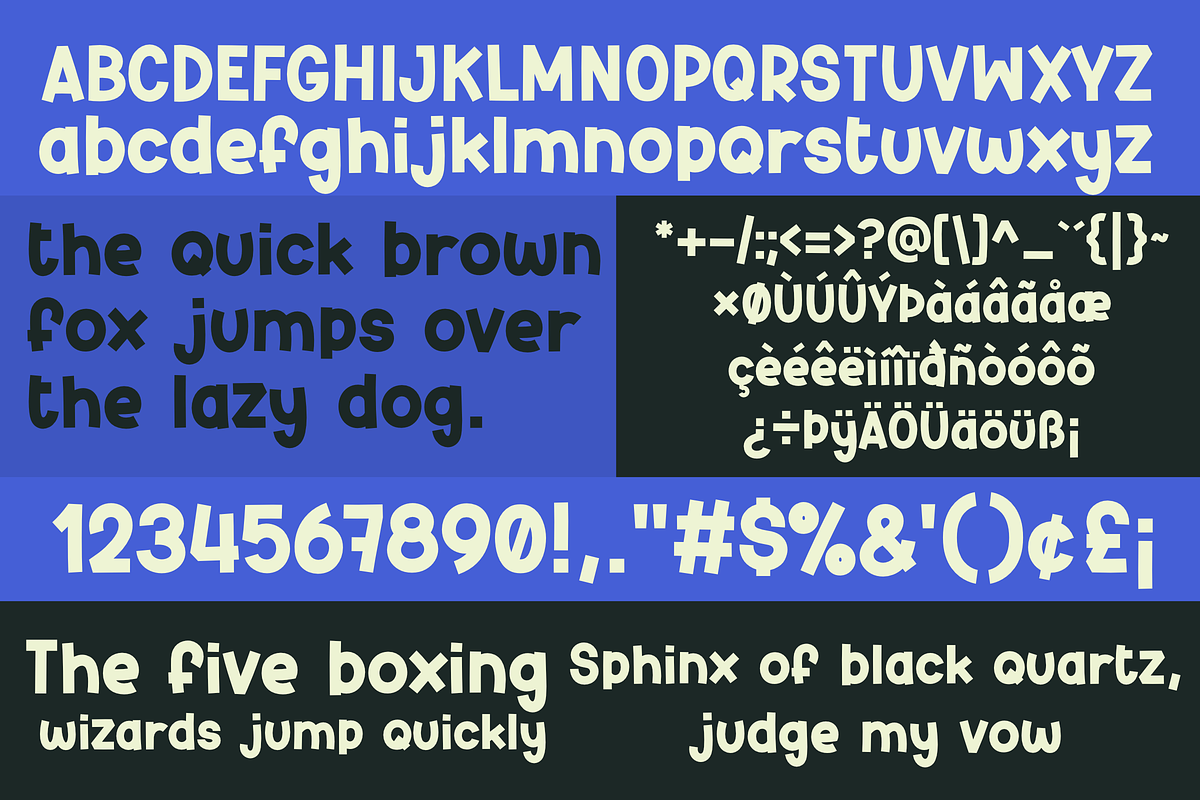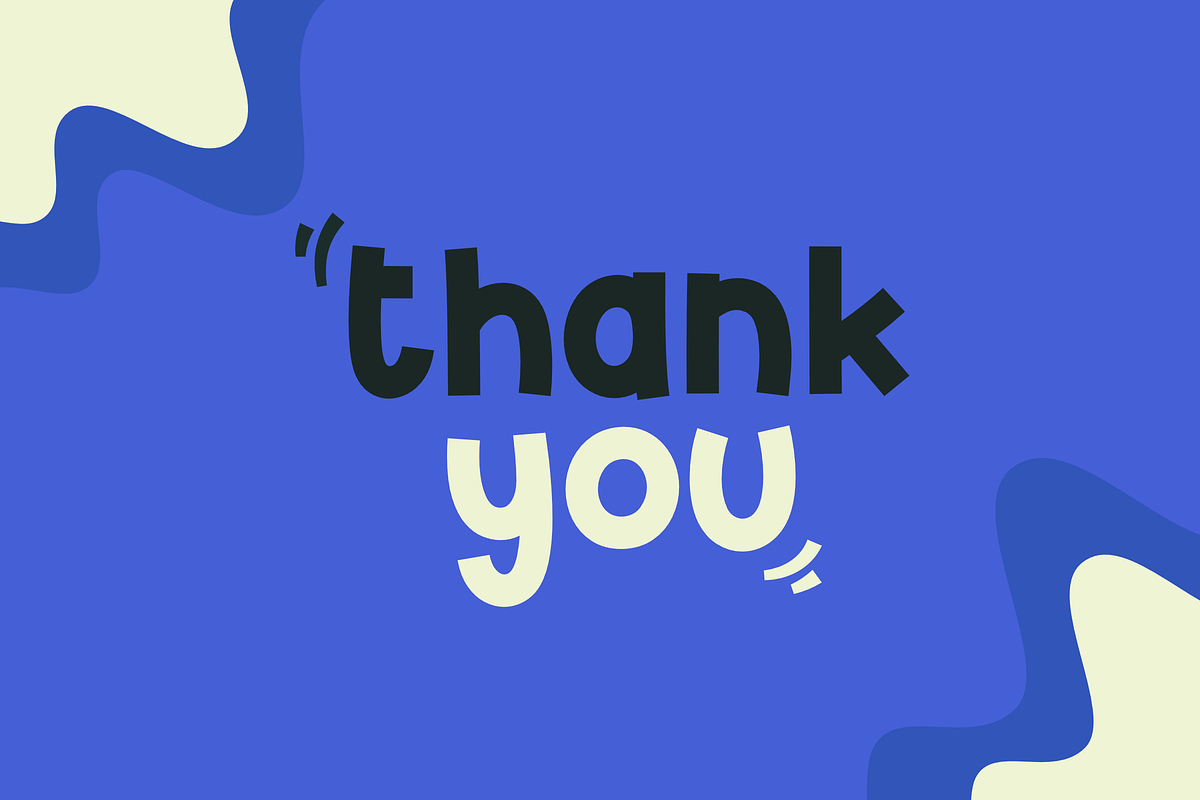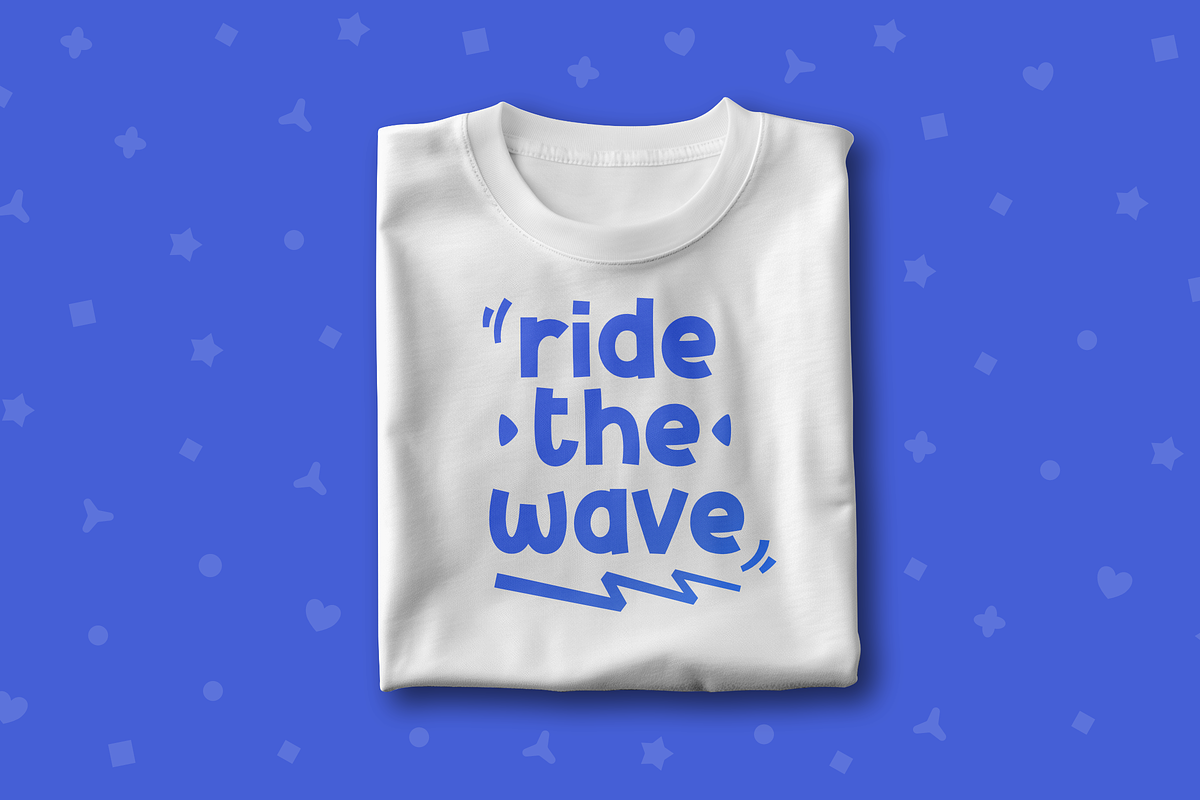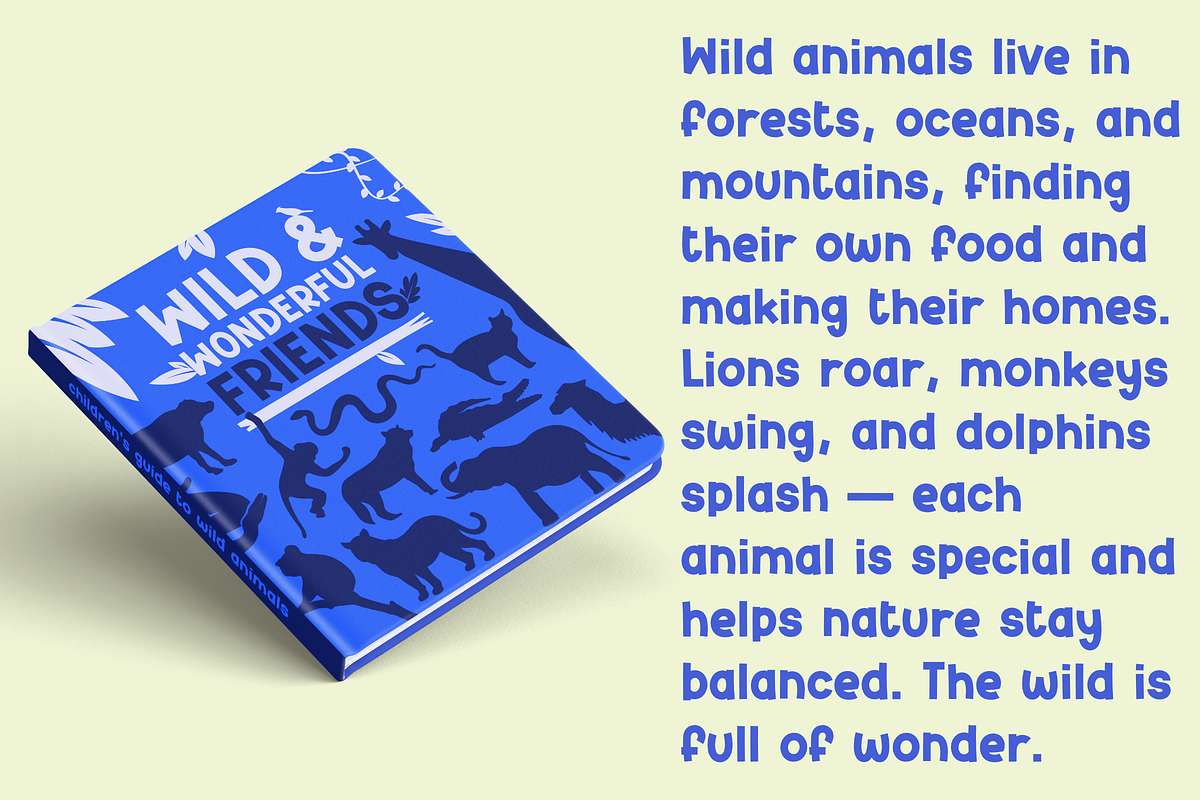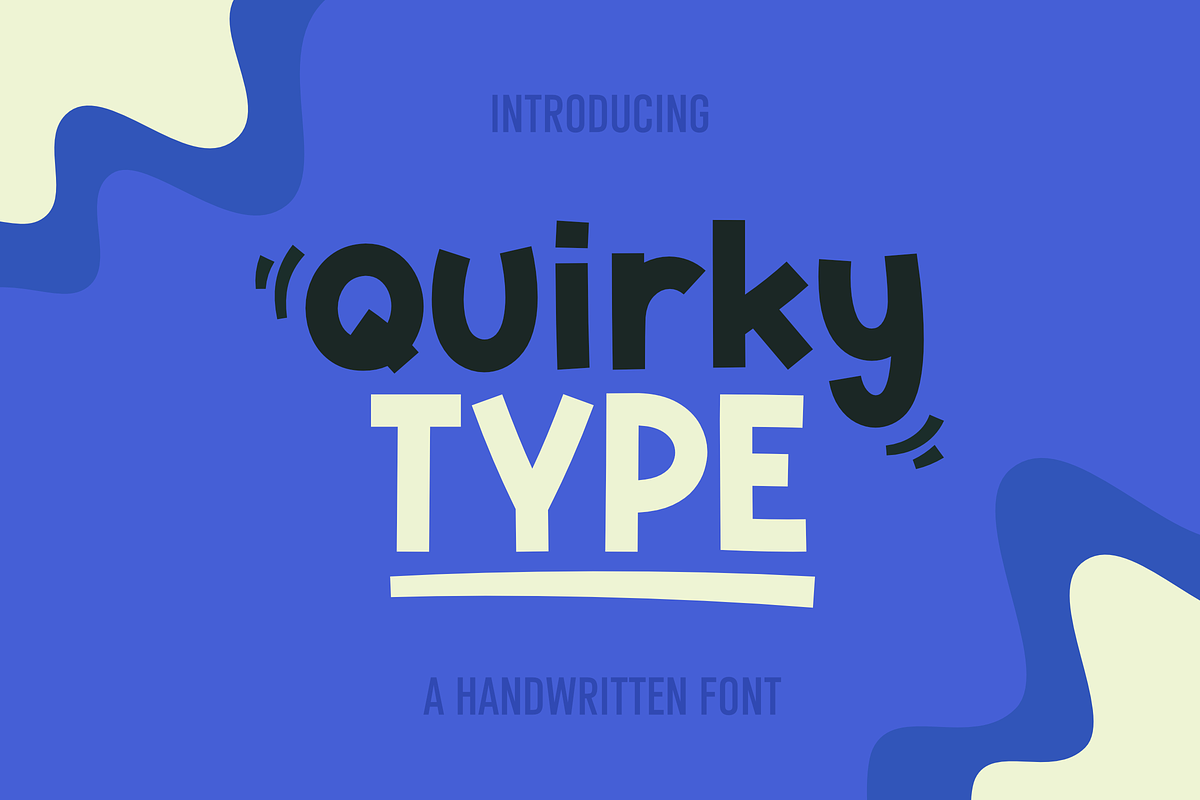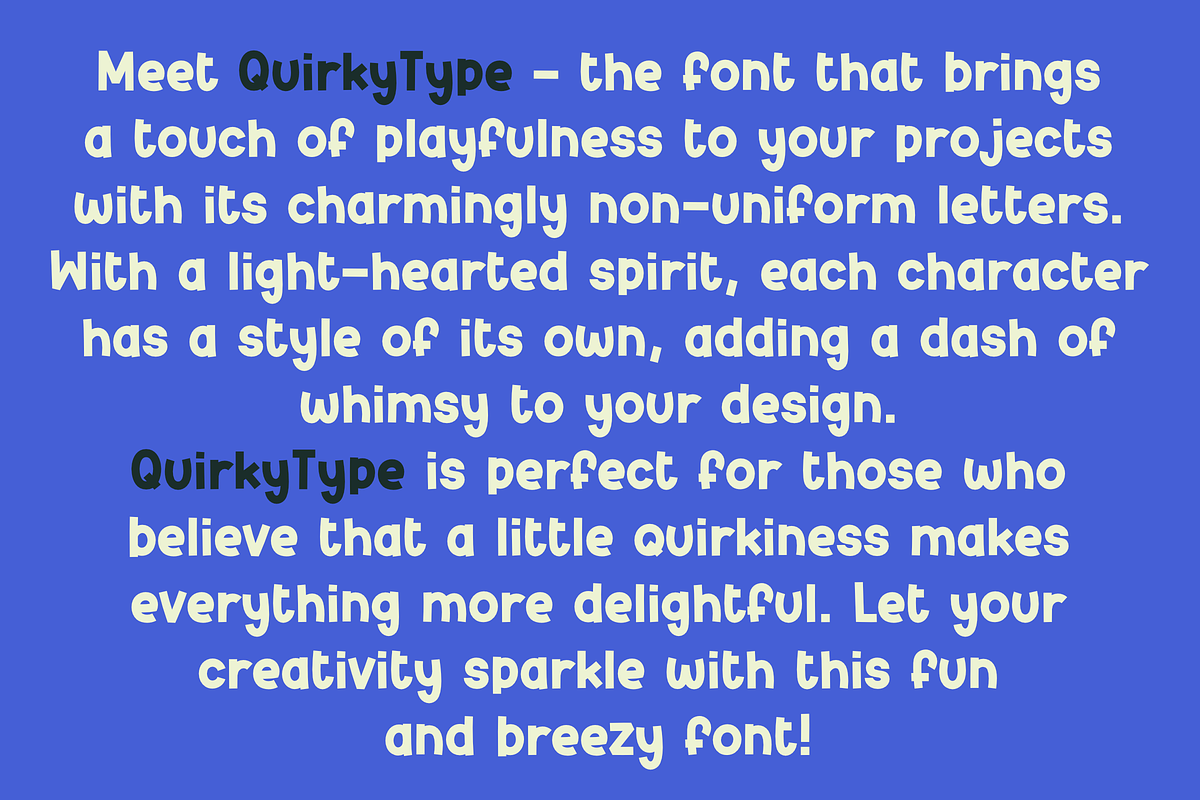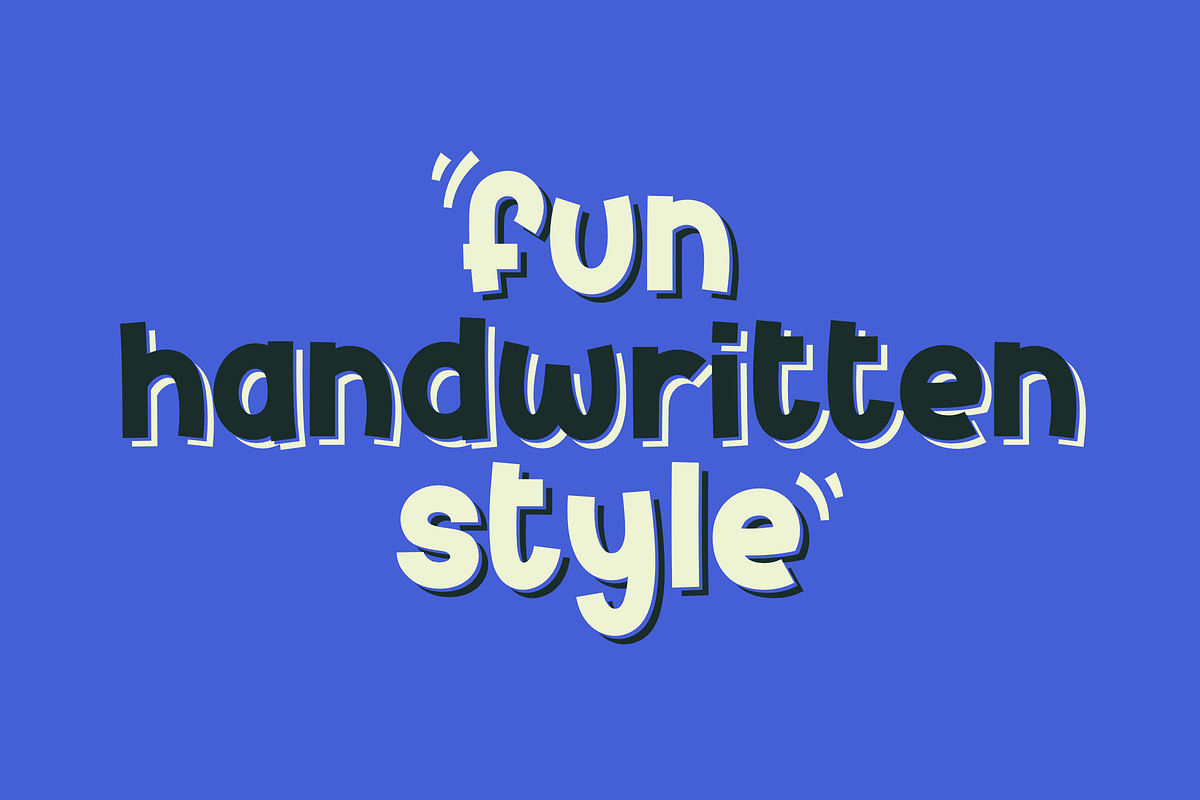
QuirkyType
Meet QuirkyType – a playful and personality-filled font designed to bring joy, charm, and creativity to every project. With its delightfully uneven letterforms and handcrafted feel, QuirkyType embraces imperfection in the most fun way possible. Each character has its own unique style, creating a lively and expressive look that instantly adds warmth and character to your designs.
Perfect for stickers, children's products, classroom materials, greeting cards, invitations, social media graphics, branding, packaging, posters, and craft projects, QuirkyType helps your work stand out with a friendly and approachable vibe. Whether you're creating something cute, whimsical, or simply looking to add a touch of fun, this font delivers a playful energy that feels both authentic and memorable.
Designed for creatives who love personality-driven typography, QuirkyType makes every word feel more engaging and cheerful. Its quirky details and easy readability make it versatile for both digital and print applications. Add a splash of imagination to your next project and let QuirkyType turn ordinary text into something truly delightful and full of character.